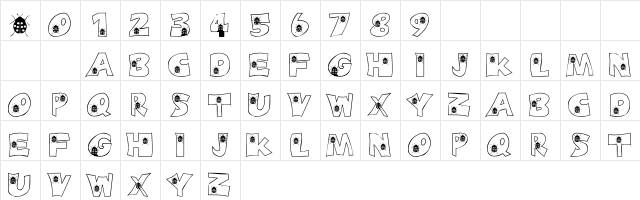
101! Lady Bug LuV Regular
Design Context for 101! Lady Bug LuV Typeface
101! Lady Bug LuV is a composed and adaptable typeface that performs quietly and consistently across a wide range of design contexts.